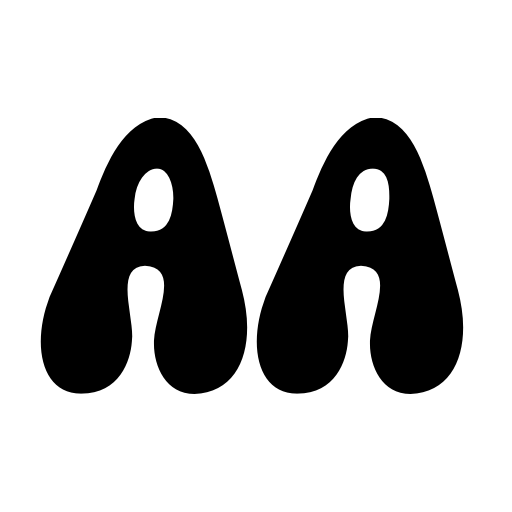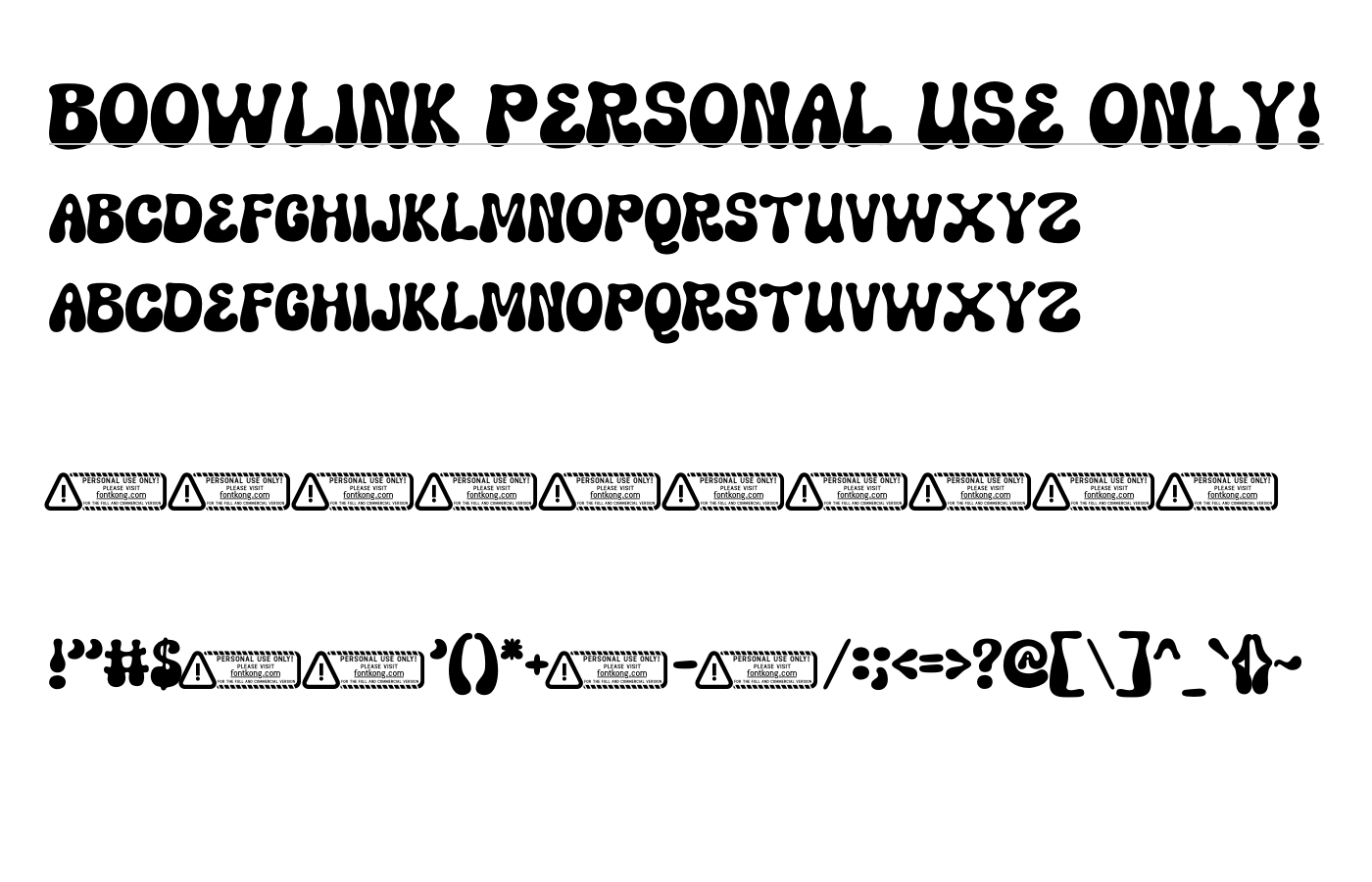
Boowlink is a bold, playful display font with rounded, blob-like letterforms that give it a fun and quirky personality. Its heavy weight and soft, organic shapes make it perfect for eye-catching headlines, logos, and creative projects that want to convey a lively and informal vibe. This font works well in designs aimed at a youthful audience or any context needing a strong, cheerful statement.